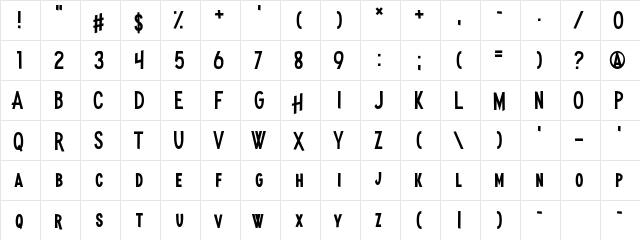
Madness Hyperactive Regular
| Designer | NAL |
Design Context for Madness Hyperactive Typeface
Madness Hyperactive offers clean, dependable letterforms without strong stylistic allegiance, making it a practical choice for designers who need flexibility.
Pro Tip: Use Madness Hyperactive in both headline and body roles to test its range before committing to a single application.